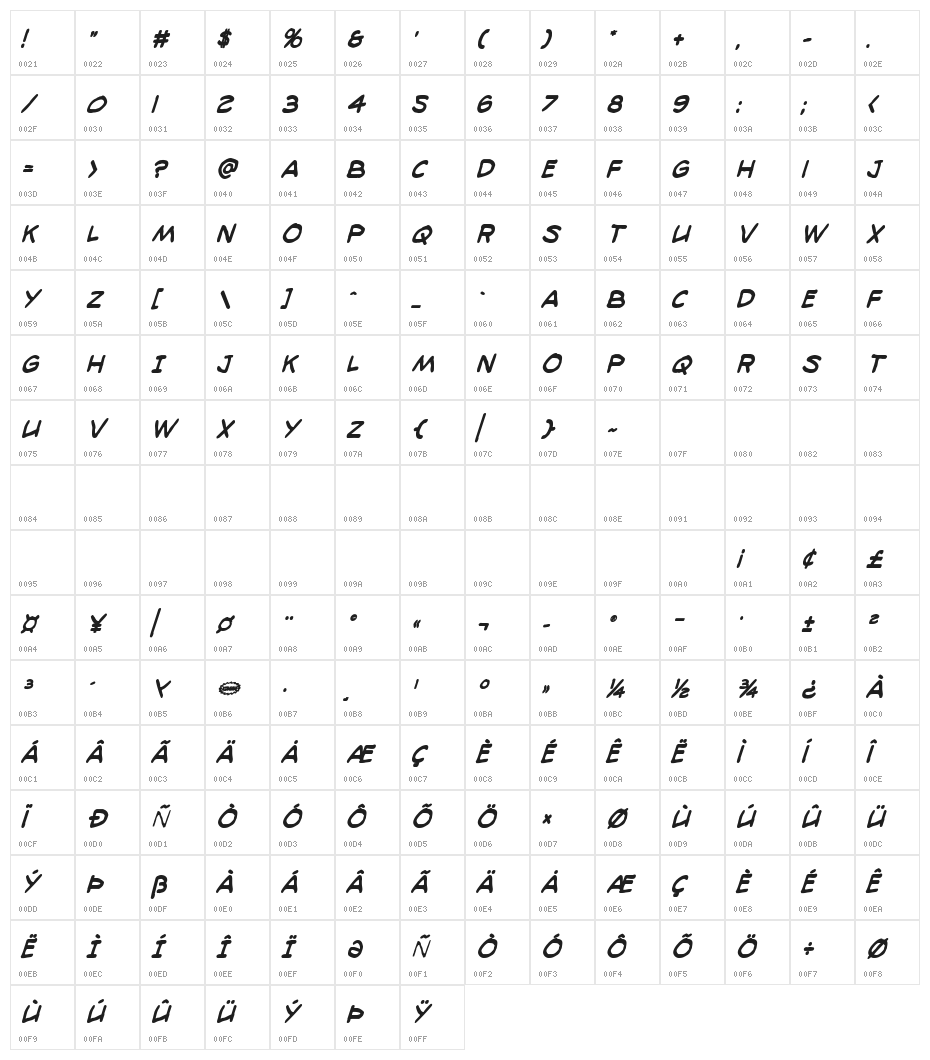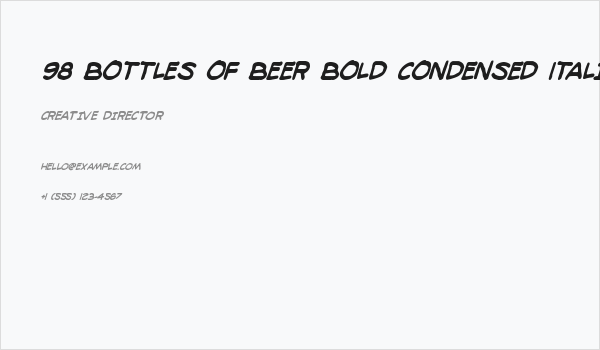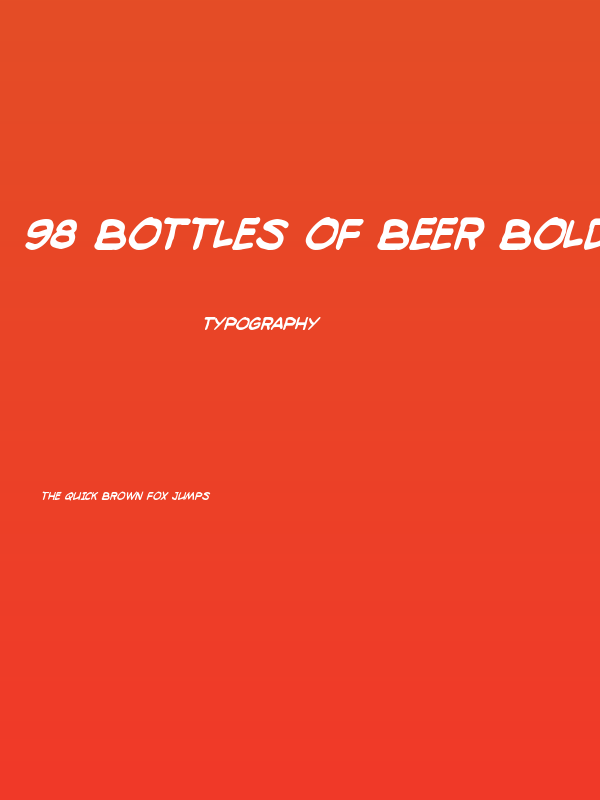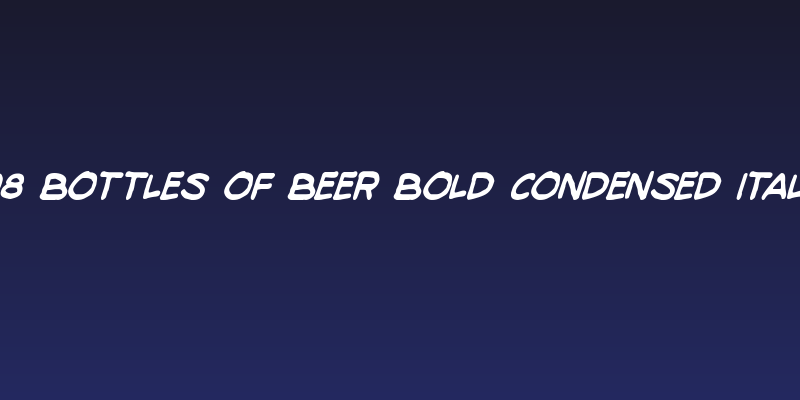
98 Bottles of Beer Bold Condensed Italic Font
98 Bottles of Beer Bold Condensed Italic Description
This font exudes a bold and dynamic presence with its condensed and italicized style. The characters are designed with a playful yet assertive flair, making them stand out with a sense of movement and energy. The strokes are thick and consistent, providing a strong visual impact. The italic slant adds a sense of urgency and flow, while the condensed nature ensures that the text remains compact and efficient in space usage. This font is particularly effective for creating eye-catching headlines or titles that demand attention. The numbers and special characters maintain the same bold and energetic style, ensuring consistency across all text elements.
| Proposed Projects | Ideal for posters, advertisements, branding materials, and any project requiring a bold and impactful typeface. |